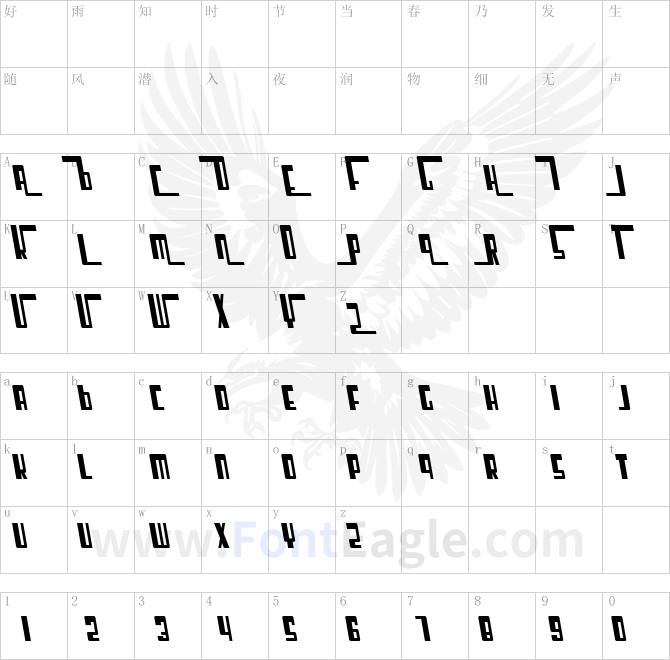
- Font name:SF Cosmic Age Condensed
- Font Subfamily ID:ShyFontsTypeFoundry: SF Cosmic Age Condensed Oblique: 2000
- Font Full Name:SF Cosmic Age Condensed Oblique